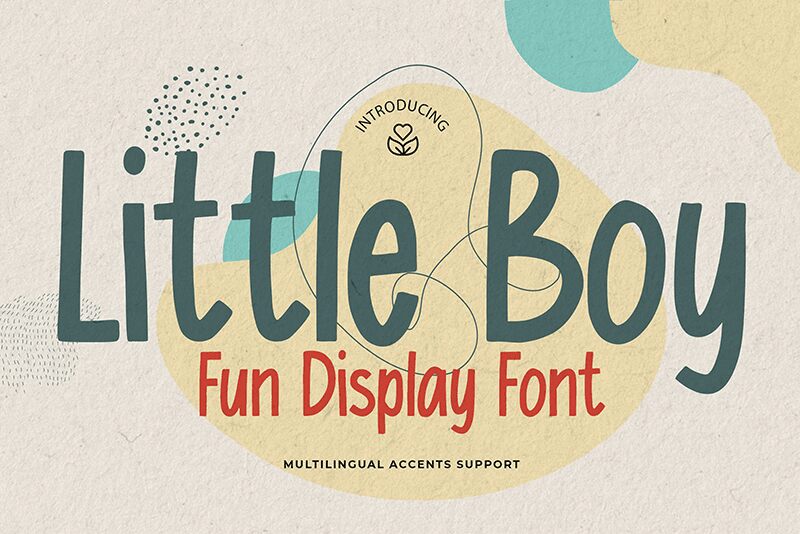
Little Boy
Little Boy, crafted by Gassstype, embodies the whimsical spirit of a handwritten note with its charming comic style and semi-light weight. This condensed display font springs to life with its playful curves and dynamic baseline, evoking the carefree doodles of a sketchbook. Designed using Procreate before being meticulously vectorized, Little Boy retains an authentic touch that adds personality to every character.
Ideal for injecting humor and warmth into your creative projects, this font shines in branding endeavors, logo design, and packaging where a touch of friendliness is key. Its endearing appearance makes it perfect for quotes and any project demanding a font with heart and levity. Step into the world of Little Boy – where typography meets playfulness in an irresistibly cute package.